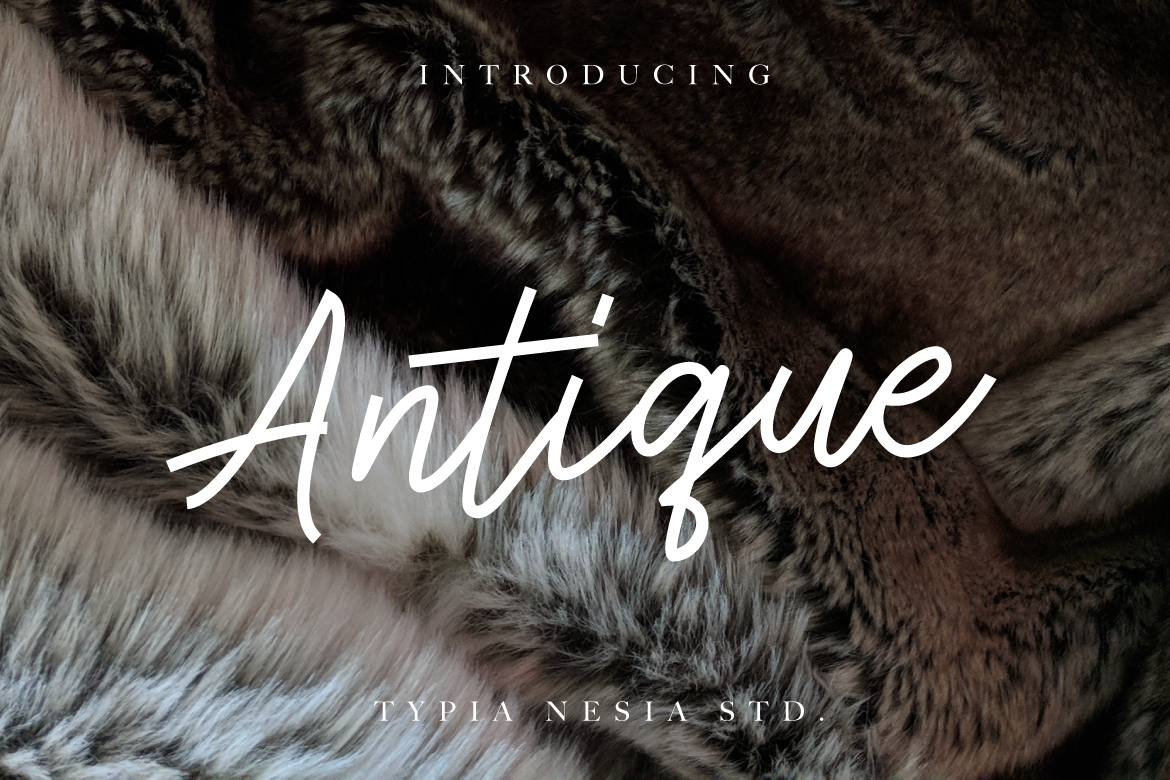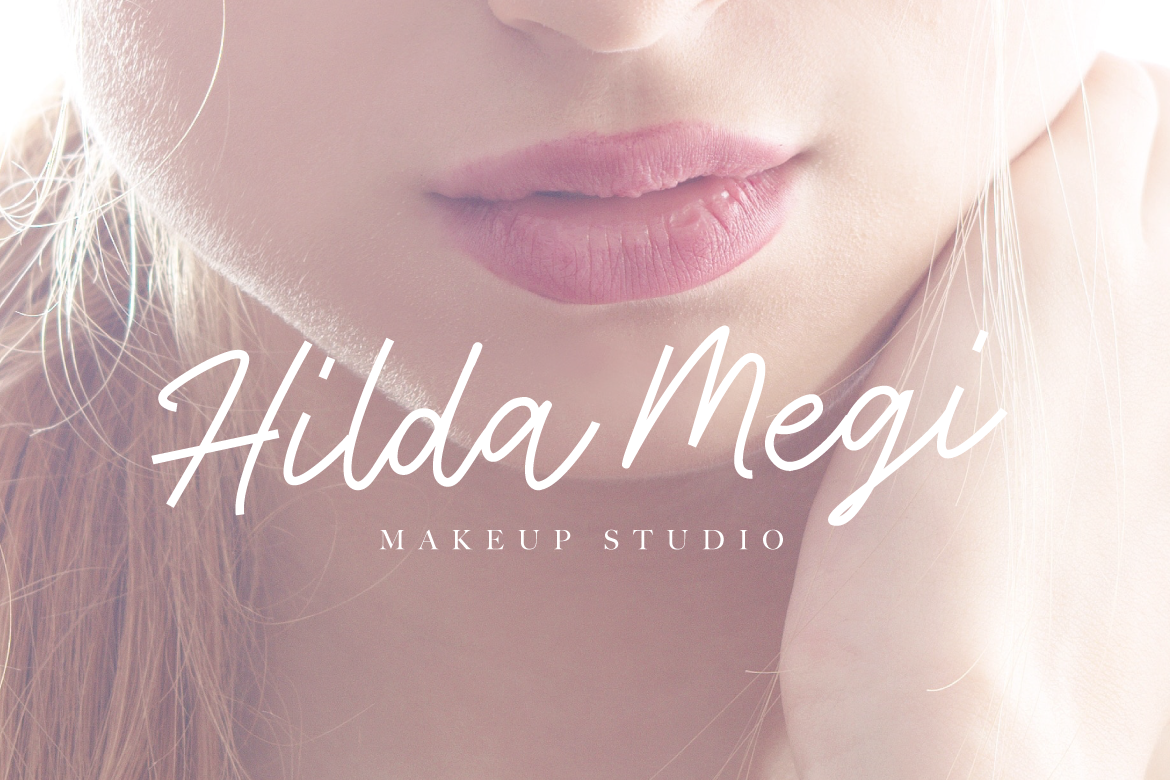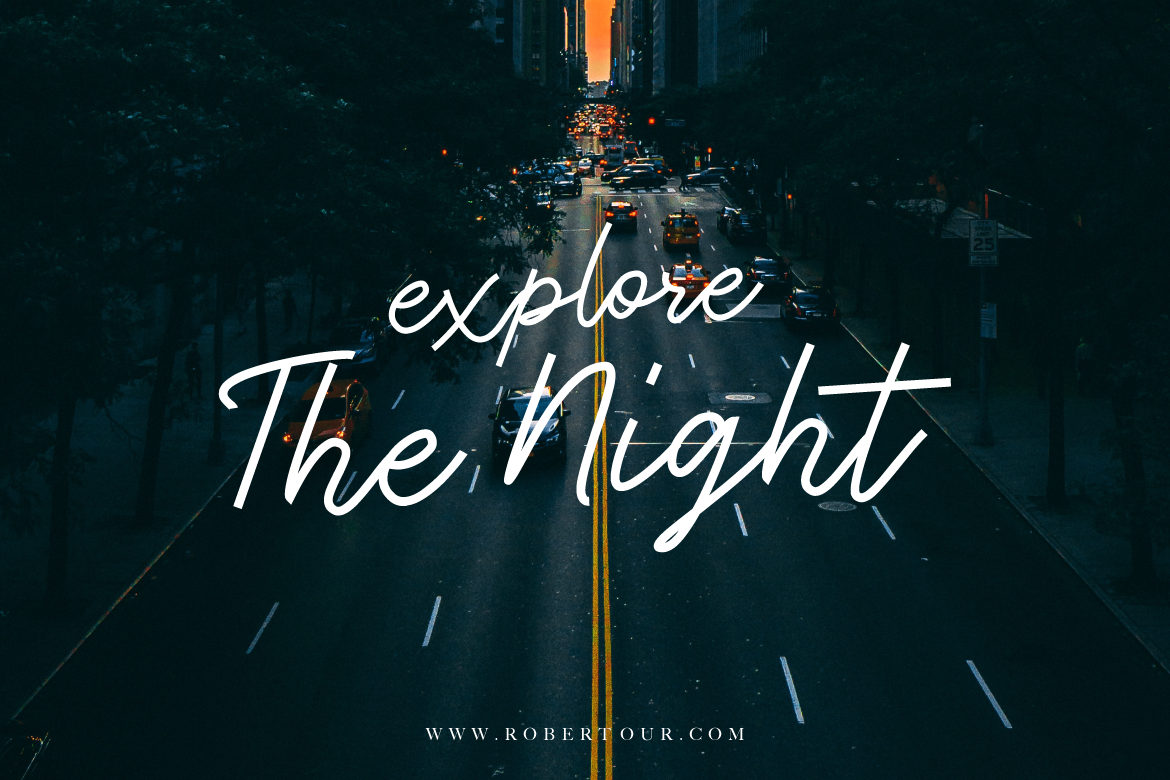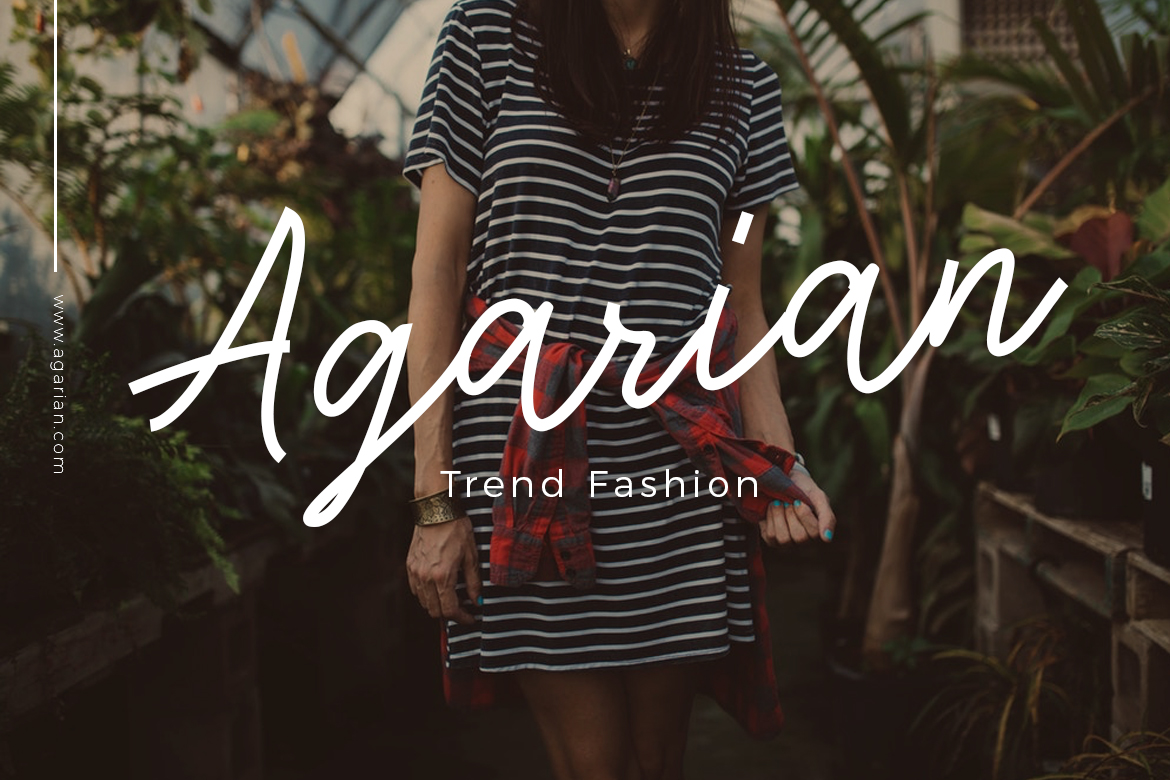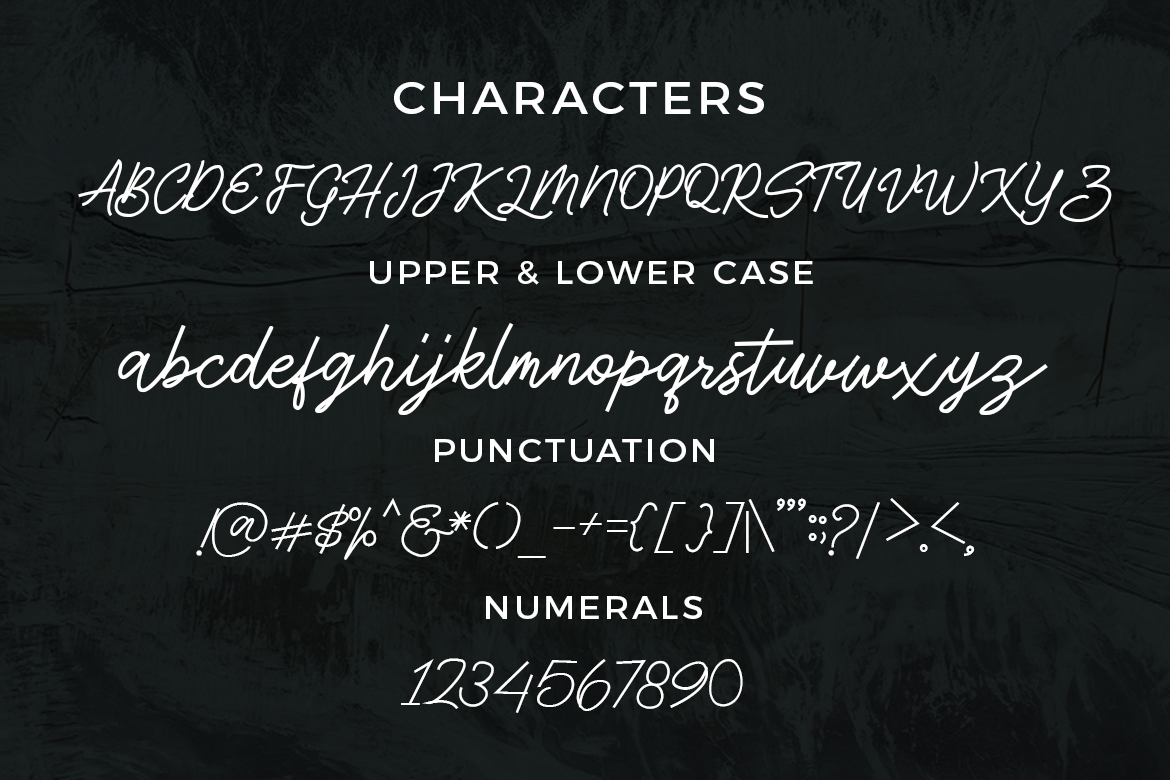
Antique Font
About Antique Font
Antique is a classy monoline font – with a variable baseline and natural flow, Antique is a great handwritten option for designs that need a modern style approach.